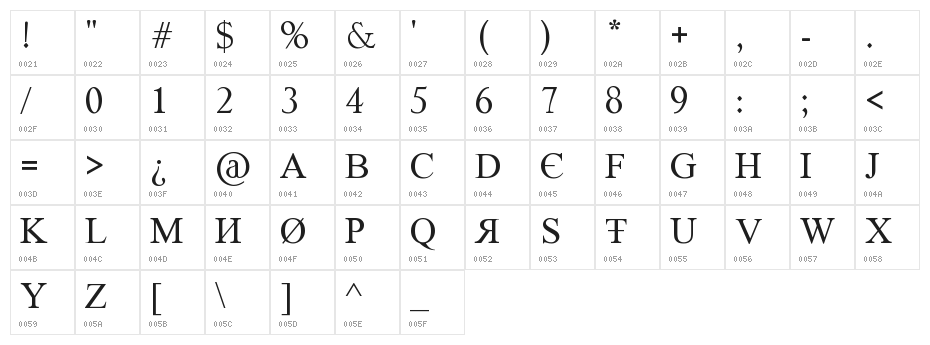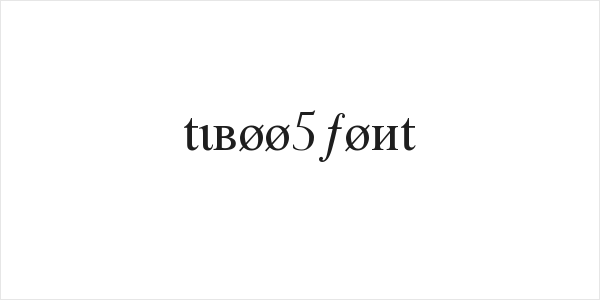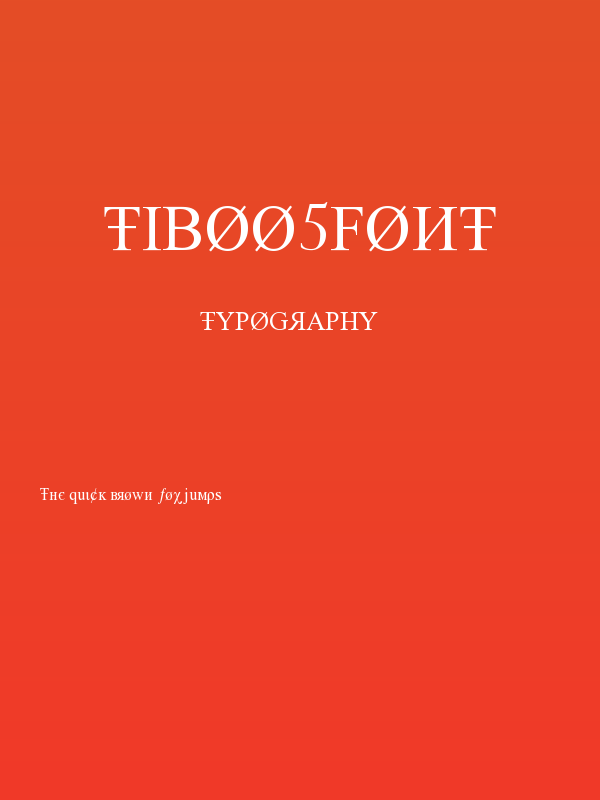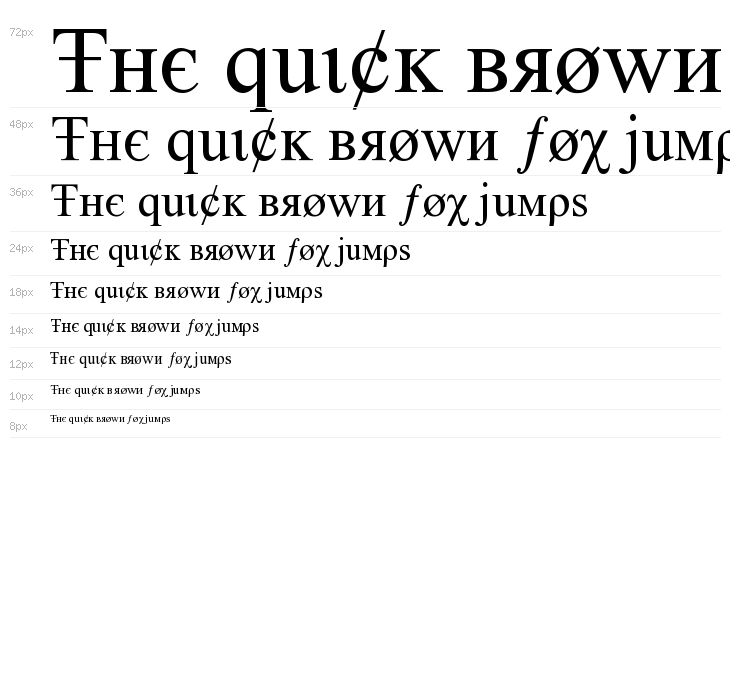
tiboo5font Font
tiboo5font Description
This font features a classic serif style with elegant, flowing lines and a sophisticated appearance. The uppercase letters are bold and commanding, while the lowercase letters maintain a graceful and refined look. The numerals are clear and easily readable, making them suitable for a variety of uses. Special characters are well-integrated, maintaining the overall aesthetic of the font. The design is timeless, offering a blend of tradition and modernity that can enhance any project requiring a touch of elegance.
| Proposed Projects | Ideal for book covers, formal invitations, branding, and editorial design. |